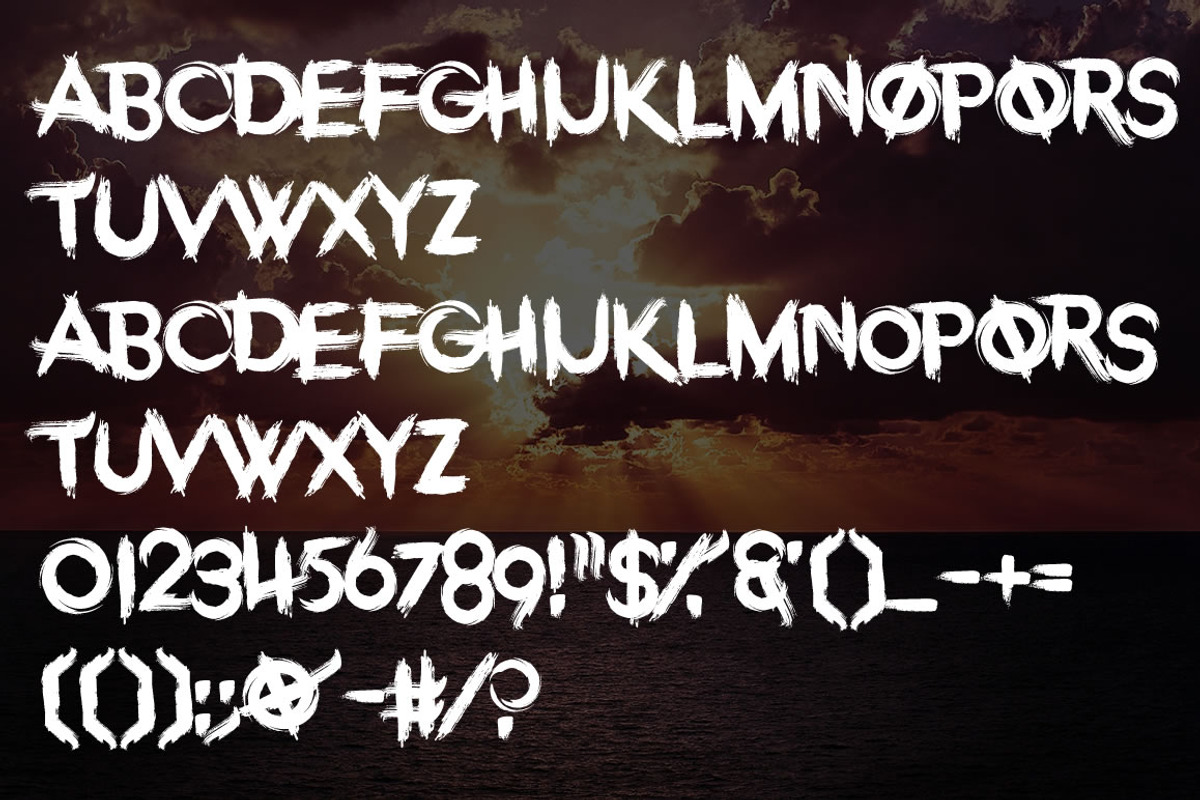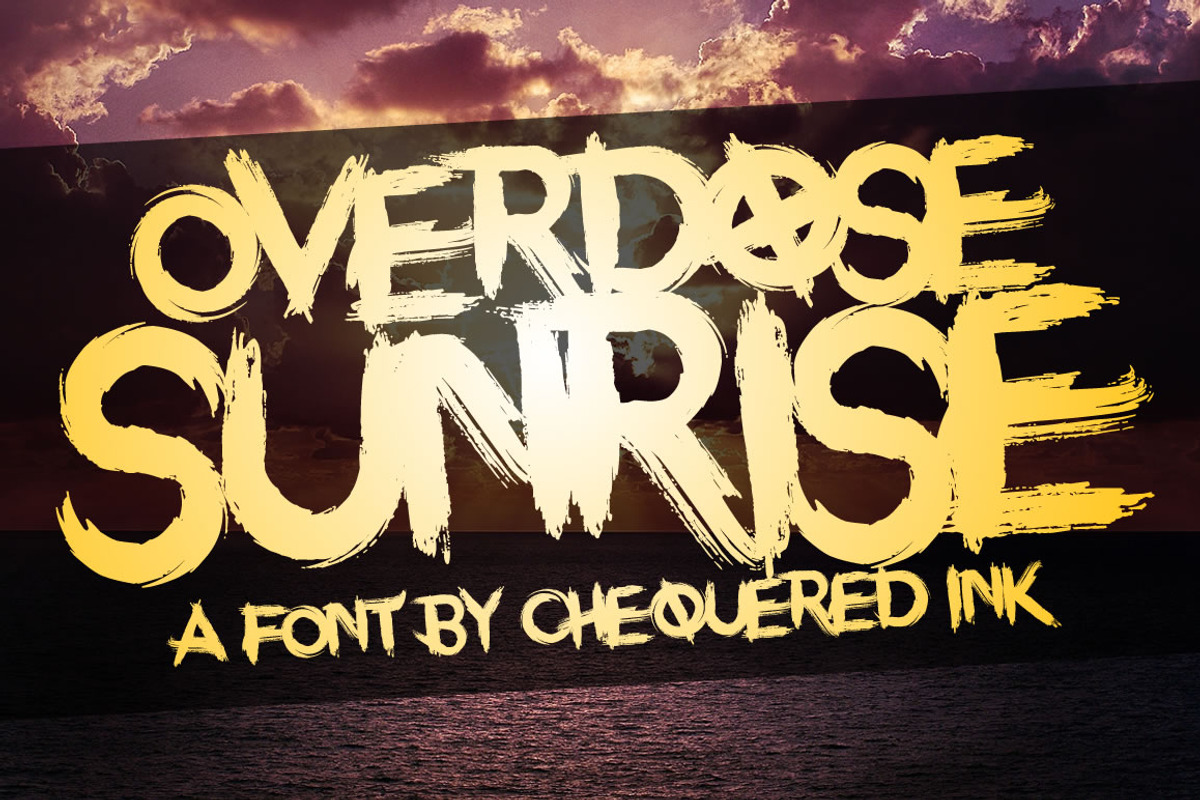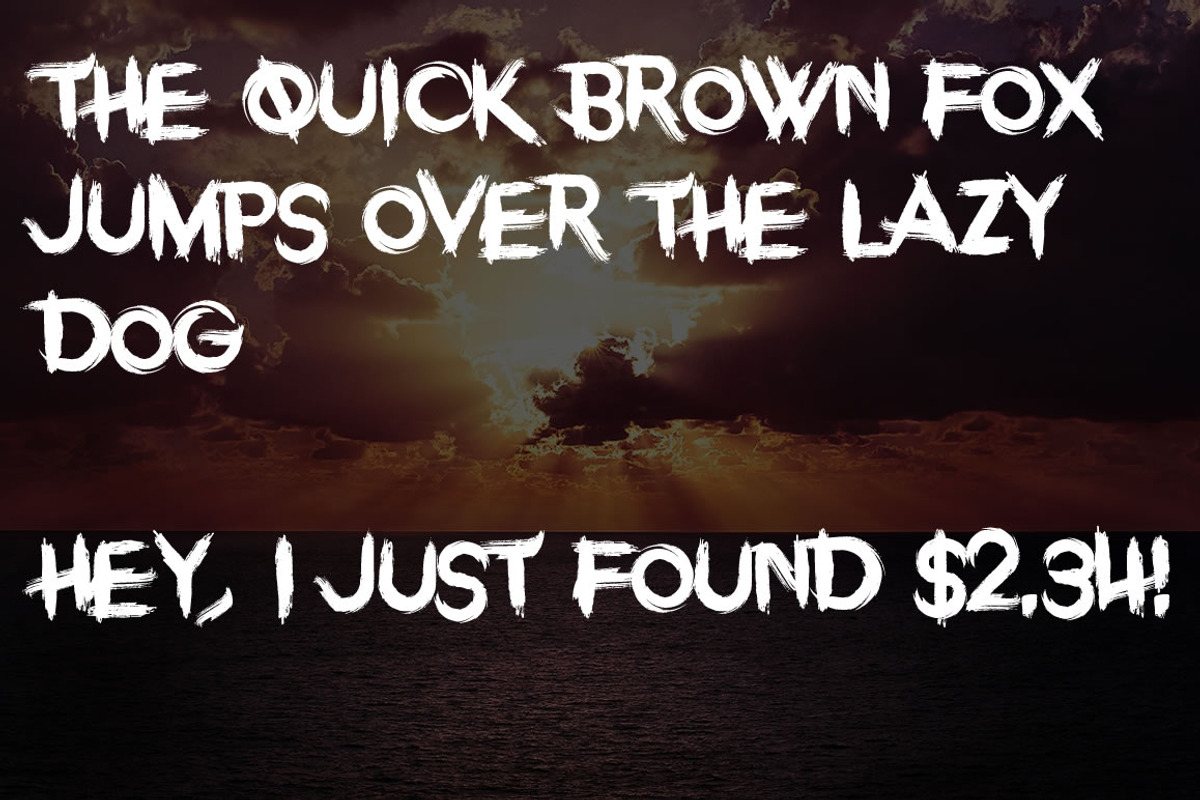
Overdose Sunrise Font
A font with broad, messy brushstrokes lending itself perfectly to a hardcore gaming project or a modern, exciting brand centered around art.
Overdose Sunrise Font by Chequered Ink fits naturally into Branding, posters, packaging, typography.